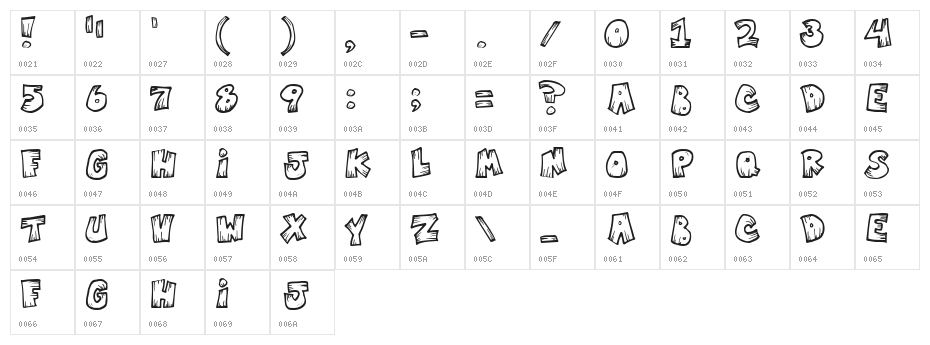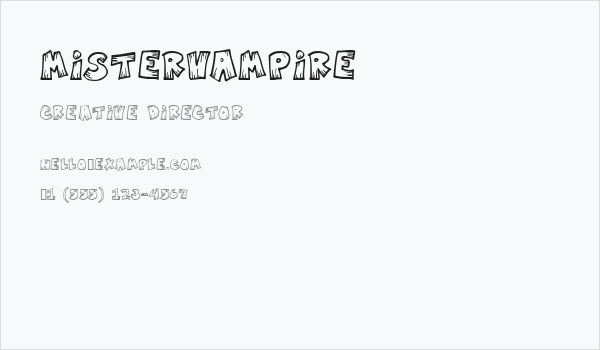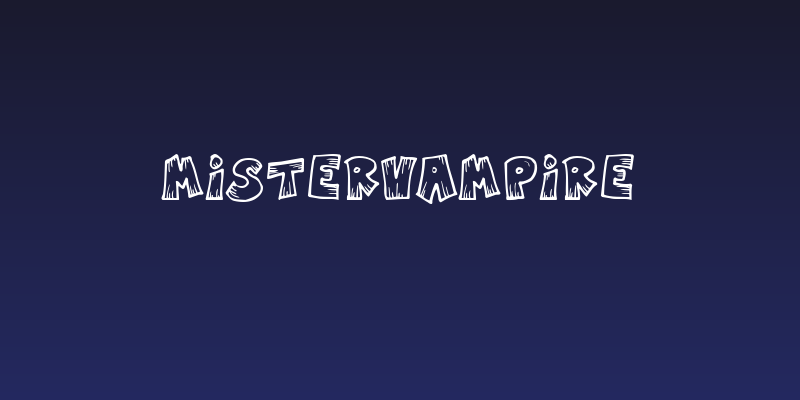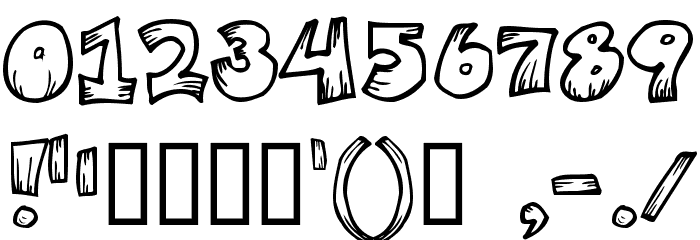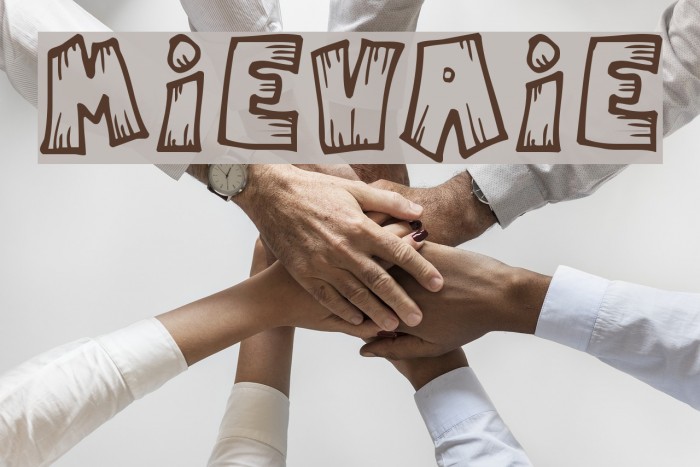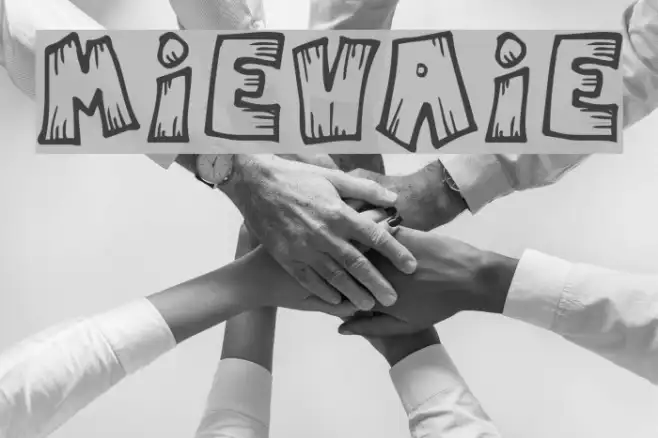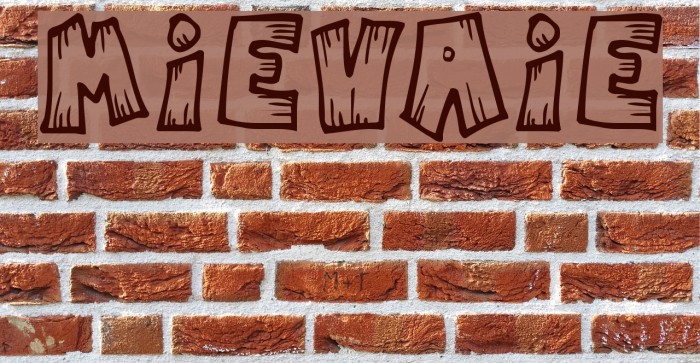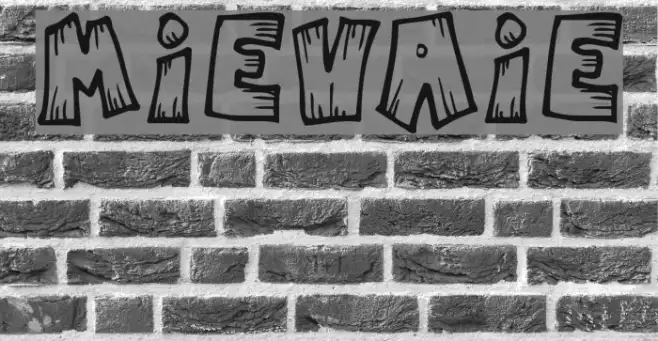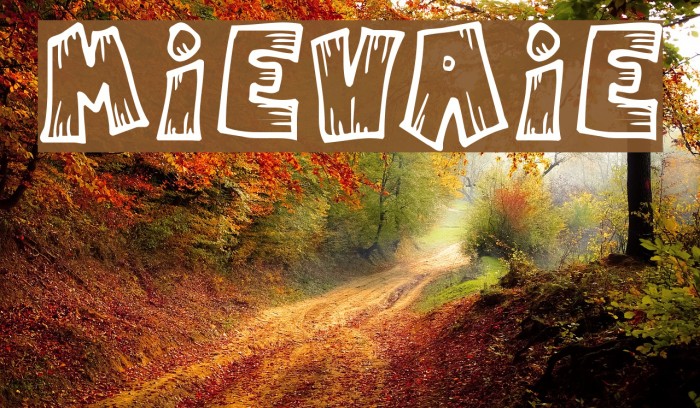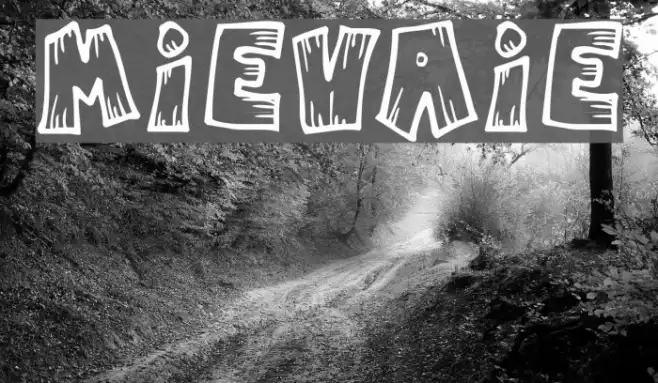
MisterVampire Font
MisterVampire Description
This font features a bold and playful design with a hand-drawn aesthetic. Each character is outlined with a thick, uneven stroke, giving it a cartoonish and whimsical appearance. The letters have a slightly irregular shape, adding to the informal and fun style. The numbers and special characters maintain this playful theme, making the font suitable for creative and lighthearted projects. The overall look is dynamic and energetic, perfect for capturing attention in a casual context.
| Overall Style | Playful, Whimsical, Cartoonish |
| Proposed Projects | Ideal for children's books, comic strips, playful branding, and event posters. |